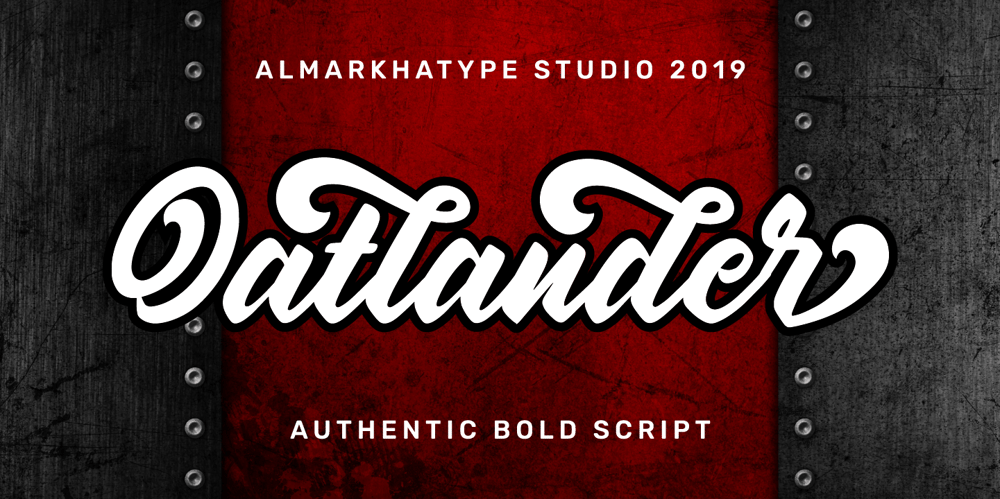
Oatlander
Oatlander font
Oatlander Font Family was designed by Abdul Malik Wisnu and published by Almarkha Type. Oatlander contains 1 styles and family package options. Introducing, Oatlander ! A bold script that will stands out from the crowd! Perfect to be used as logotype, badge and label! This has many opentype features like stylistic alternate,and support multi language.if you have any Question please Message Me.Thank You